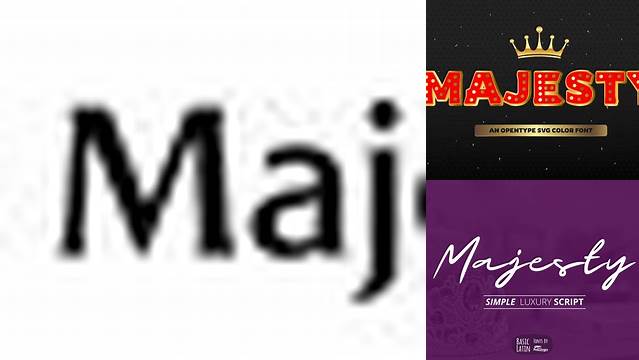
1. What is Majesty Medium Font?
Majesty Medium isn't just another typeface; it's a statement. It's that font you see on classy invitations, sophisticated websites, and branding materials that just pop. Known for its balanced strokes and clear legibility, Majesty Medium straddles the line between formal and approachable. Its versatility makes it a go-to choice for designers and content creators aiming to convey a sense of authority without sacrificing readability. This font is characterized by its carefully crafted letterforms, ensuring each character is not only visually appealing but also highly functional across various media. It's more than just aesthetics; it's about creating a visual experience that resonates with your audience, conveying your message with clarity and style. When you choose Majesty Medium, you're opting for a typeface that understands the assignment, blending form and function seamlessly.
2. Why Choose Majesty Medium Font?
So, why should you even bother with Majesty Medium? Simple. It's versatile. Need something for a formal invitation? Check. How about a clean, professional website? Double-check. This font is a workhorse. Majesty Medium stands out due to its exceptional readability and elegant design. Whether you're working on print or digital projects, this font ensures your message is conveyed with clarity and sophistication. Its balanced letterforms make it easy on the eyes, reducing reader fatigue and enhancing engagement. Furthermore, Majesty Medium's adaptability allows it to seamlessly integrate into various design aesthetics, from classic to modern. This makes it a valuable asset for any designer looking to create a cohesive and impactful visual identity. Choosing Majesty Medium means opting for a font that not only looks great but also enhances the overall user experience, ensuring your content is both visually appealing and highly accessible.
3. Majesty Medium Font: Key Features
Let’s break down what makes Majesty Medium tick. We’re talking about things like its clean lines, balanced weight, and overall readability. These features make it super versatile for different projects. Majesty Medium boasts a range of key features that make it a standout choice for designers and content creators. Its clean lines contribute to a modern and sophisticated look, while the balanced weight ensures each character is visually harmonious. Readability is a top priority, making it suitable for both body text and headlines. The font also includes a comprehensive set of glyphs, supporting a wide range of languages and symbols. Additionally, Majesty Medium is designed to perform exceptionally well in both print and digital environments, maintaining its clarity and visual appeal regardless of the medium. These features collectively make Majesty Medium a versatile and reliable font for any project, ensuring a professional and polished final result. Its thoughtful design and attention to detail make it a valuable asset in any designer's toolkit.